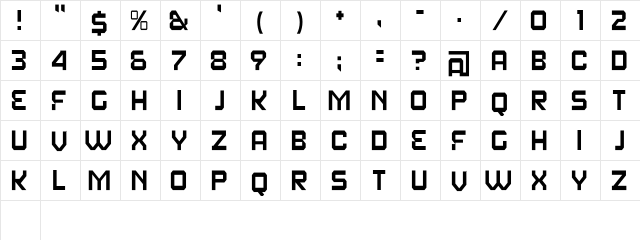
Fear Factor Text Regular
Design Context for Fear Factor Text Typeface
Fear Factor Text offers clean, dependable letterforms without strong stylistic allegiance, making it a practical choice for designers who need flexibility.